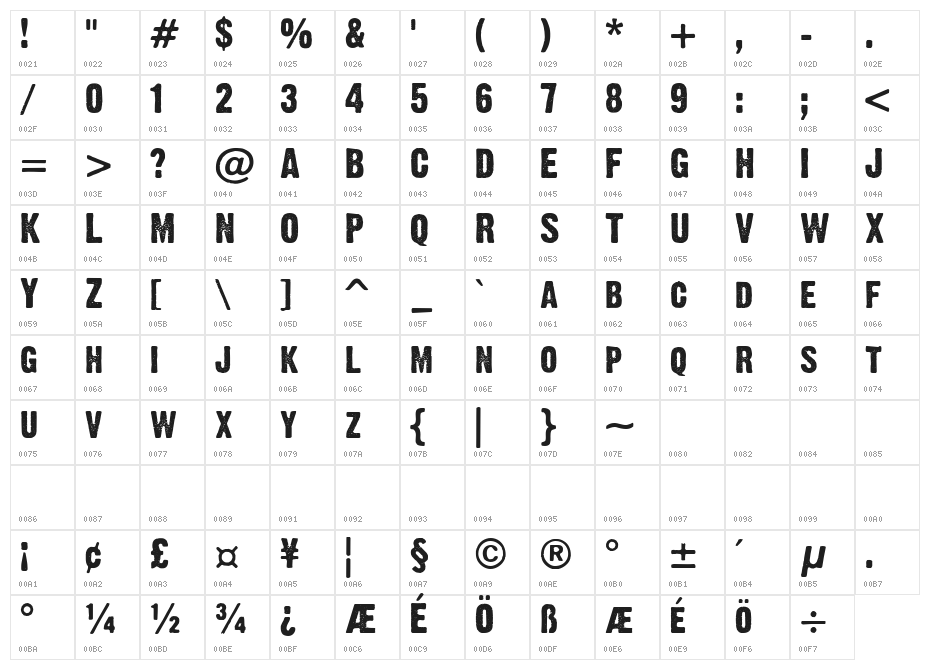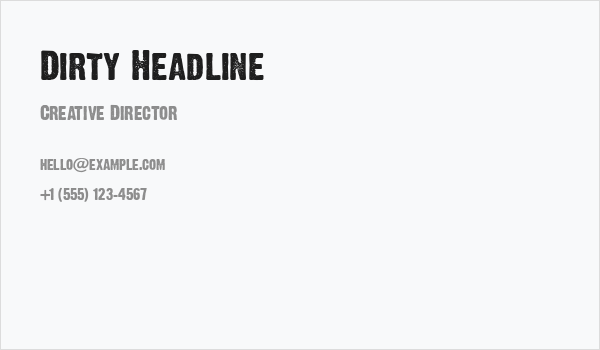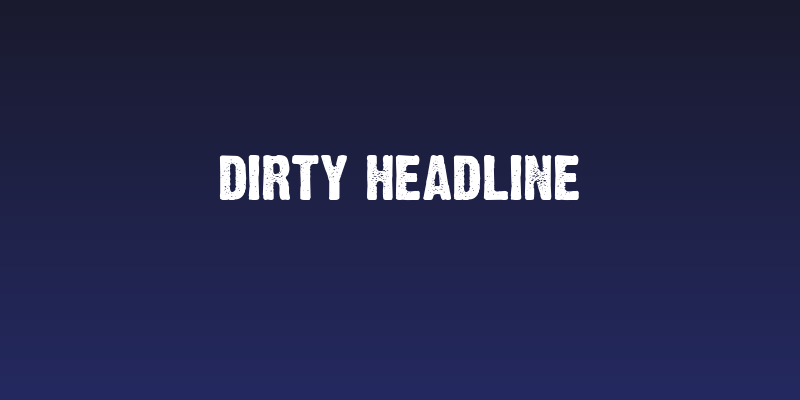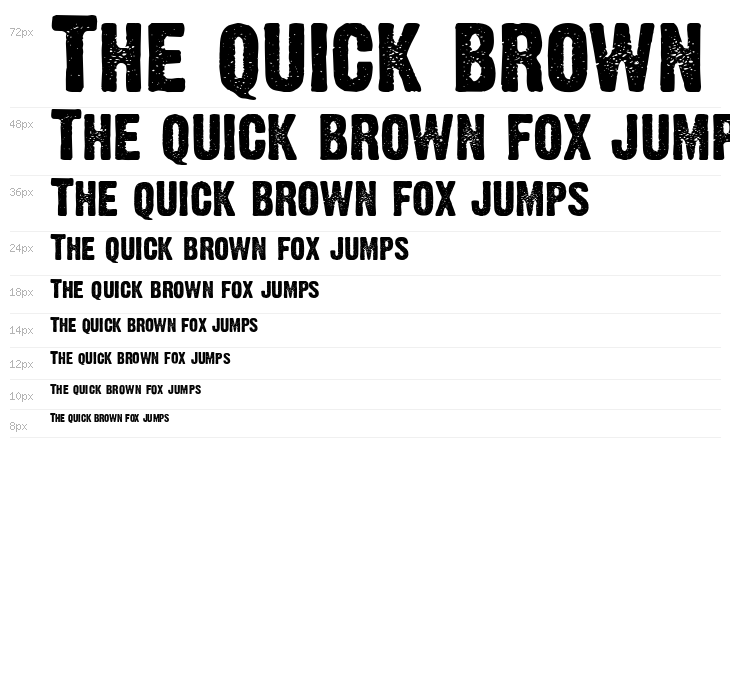
Dirty Headline Font
| Gesamtstil | Vintage |
| Vorgeschlagene Projekte | Perfect for posters, album covers, branding for rugged products, or any design needing a bold, vintage touch. |